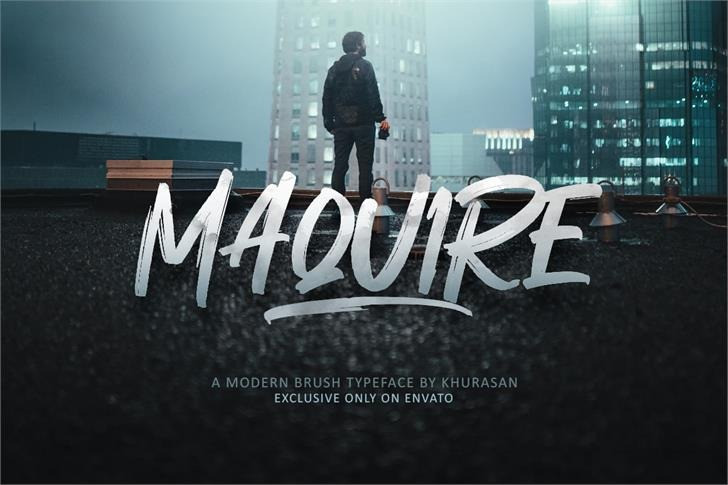
Maquire Brush Script Font
Maquire Brush Script – Free Demo
Start a new day with a brush font. This is a strong and bold typeface with brush style. It’s made by handwriting on paper with a coarse type brush, to produce a consistent texture. Introducing Maquire Font. It’s designed and shared by khurasan. The Maquire Brush is a fresh handwritten type brush, elegant and vintage feel character set. The Maquire font includes a full set capital and lowercase letters, as well as multi-lingual support, currency figures, numerals, & punctuation.